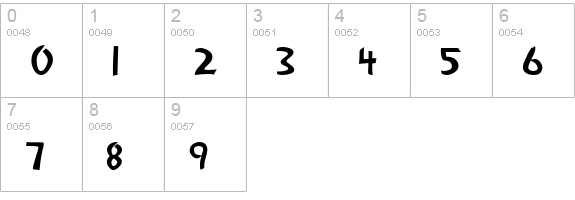
Alan Den Font Details
Introducing Alan Den font - a sleek and modern typeface that combines elegance with a touch of sophistication. With its clean lines and stylish curves, Alan Den is perfect for a wide range of design projects, from logos to branding, packaging to social media graphics. But what makes Alan Den truly stand out is that it is completely free to download at FontsMarket.com. Yes, you read that right - this stunning font can be yours without any cost. So go ahead, elevate your designs with Alan Den and make a lasting impression with its unique charm and versatility. Download Alan Den today and let your creativity soar!